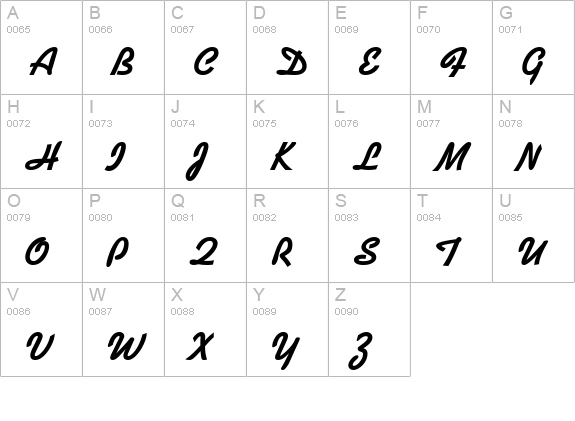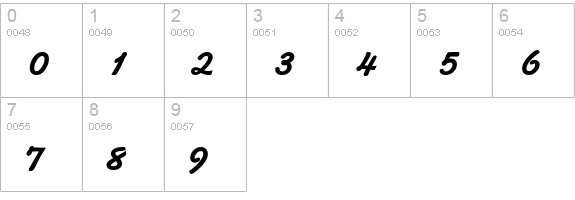
DinerScript Bold Font Details
DinerScript Bold is a strong, high-contrast variant in the DinerScript typeface family \xE2\x80\x94 well suited to headlines, attention-grabbing titles, and strong calls-to-action.
DinerScript Bold font is a delightful and charming typeface that exudes a retro diner aesthetic with its bold and playful design. This font is perfect for adding a touch of nostalgia and whimsy to your designs, whether it's for menus, posters, or branding projects. The bold and dynamic strokes of DinerScript Bold make it stand out and grab attention, while its vintage look adds a unique flair to any project. Best of all, DinerScript Bold font is completely free to download at FontsMarket.com, making it easily accessible for designers and creatives looking to add a fun and quirky element to their work. Don't miss out on this fantastic font that will bring a touch of retro charm to your designs!